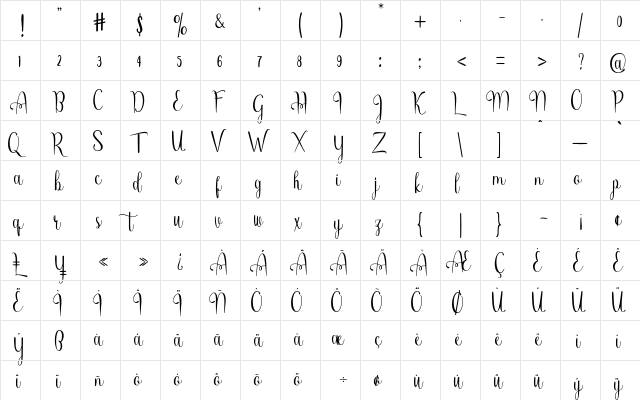
Qorlyna Script Regular
| Foundry | Aqeela Studio |
| Designer | Aqeela Studio |
Design Context for Qorlyna Script Typeface
Qorlyna Script flows with the natural rhythm of handwritten lettering, making it ideal for designs that call for warmth and personal expression.
Font Pairing: Combine Qorlyna Script with a simple geometric sans for maximum contrast — the tension between flowing curves and clean structure is a classic typographic pairing.
Pro Tip: Pair Qorlyna Script with a clean sans-serif for supporting text. The contrast between fluid script and geometric structure creates an elegant typographic hierarchy.